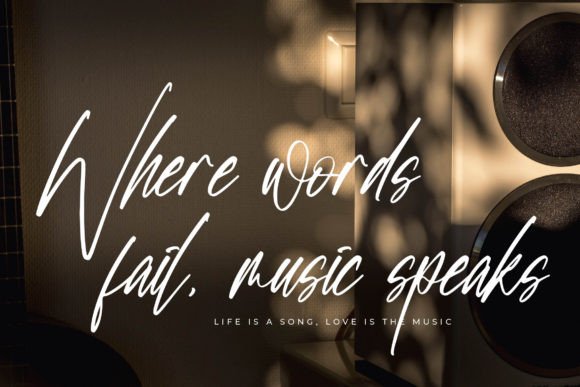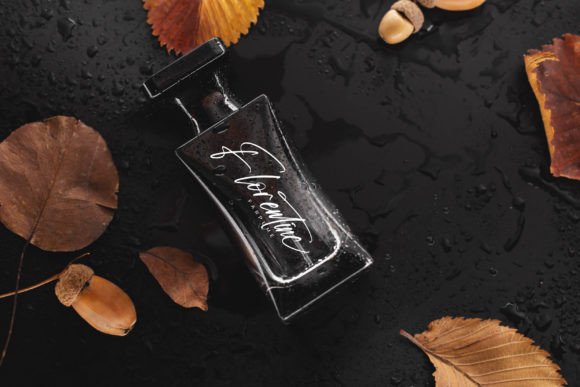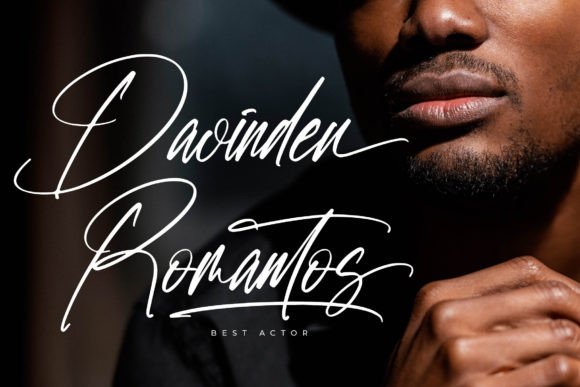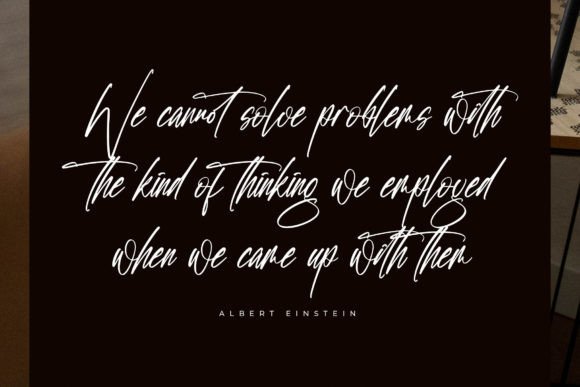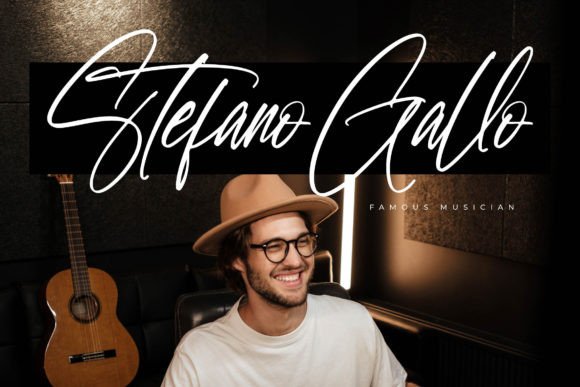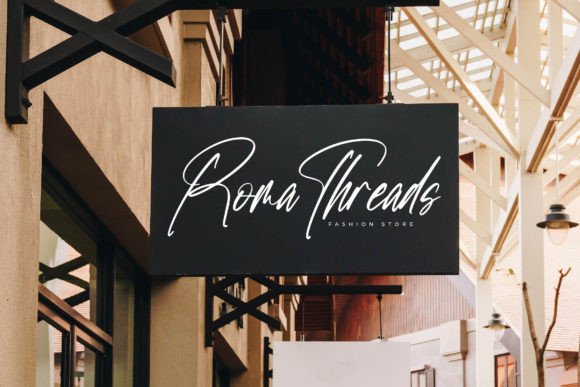
Introducing Ballemyatss Font: The Epitome of Luxury Script Fonts
In the realm of typography, a font can make or break the aesthetic appeal of a design project. For designers and crafters seeking to infuse their creations with a touch of luxury and sophistication, Ballemyatss Font emerges as a game-changer. This modern signature script font, crafted by Letterena, is a versatile and elegant typeface suitable for a wide array of projects that demand a high-end look.
What is Ballemyatss Font?
Ballemyatss is a luxury script font that exudes modernity and refinement. Its fluid strokes and meticulously designed letterforms make it an ideal choice for projects where making a statement is paramount. Whether you’re working on logos, branding projects, homeware designs, product packaging, or any other venture that requires a dash of elegance, Ballemyatss Font is up to the task.
Key Features of Ballemyatss Font
- Modern Signature Script: Ballemyatss boasts a contemporary script style that is both fresh and timeless, allowing it to seamlessly integrate into various design contexts.
- Luxury Appeal: Its sophisticated look and feel make it perfect for luxury brands, high-end products, and any project aiming to convey exclusivity and premium quality.
- Versatility: From logos and branding to packaging, apparel, and stationery, Ballemyatss Font adapts effortlessly to different mediums and applications.
- Ease of Use: Designed with user-friendliness in mind, Ballemyatss Font is easy to incorporate into your projects, making it accessible for both seasoned designers and DIY crafters.
Applications of Ballemyatss Font
The versatility of Ballemyatss Font is one of its most compelling attributes. Here are some of the many projects where this luxury script font can make a significant impact:
- Logos and Branding Projects: Create a lasting impression with a unique and memorable logo that speaks luxury.
- Homeware Designs: Elevate home decor with custom typography on mugs, wall art, and other decorative items.
- Product Packaging: Stand out on store shelves with sophisticated packaging that reflects your brand’s luxury status.
- Apparel: From t-shirts to shopping bags, add a touch of elegance to your wearable and carryable designs.
- Stationery and Invitations: Make your greeting cards, invitation cards, and name cards truly special with beautiful, high-end typography.
- Photography and Watermarks: Add a professional touch to your photos with elegant watermarks.
Why Choose Ballemyatss Font?
In a sea of fonts, Ballemyatss stands out for several reasons:
- Unique Design: Its distinctive style ensures your projects won’t go unnoticed.
- High Versatility: Suitable for a broad spectrum of applications, saving you time and effort in finding the right font for different projects.
- Easy Integration: Seamlessly incorporate into your design workflow, regardless of your proficiency level.
- Luxury Appeal: Instantly elevate your designs with a sophisticated and upscale look.
Ballemyatss Font by Letterena is a powerful tool for designers and crafters aiming to infuse their projects with a sense of luxury and modernity. Its elegant design, versatility, and ease of use make it an invaluable asset in the world of design. Whether you’re working on a high-end branding project or simply looking to add a touch of sophistication to your DIY crafts, Ballemyatss Font is an excellent choice. Embrace the luxury, adopt the elegance, and let Ballemyatss take your designs to the next level.